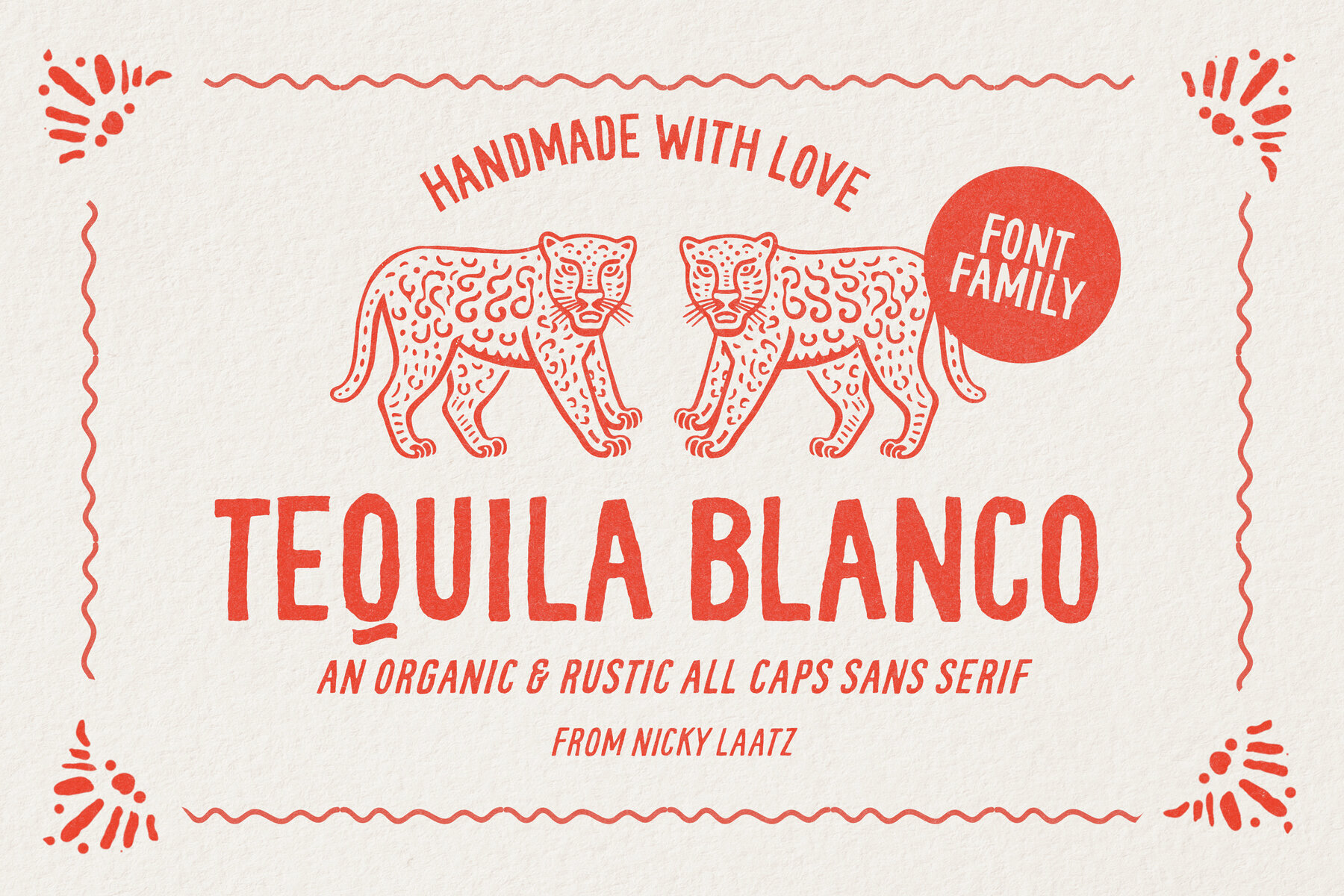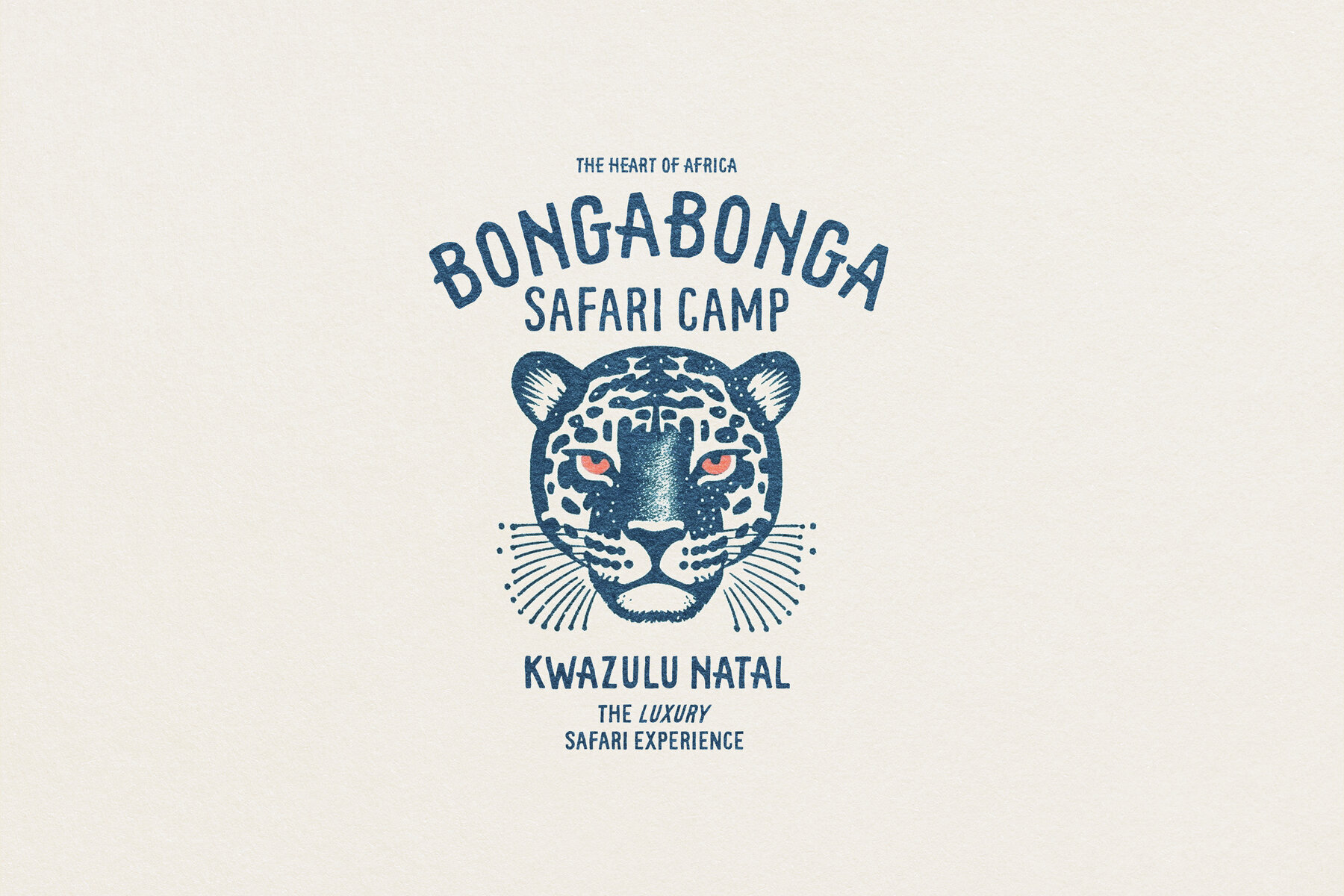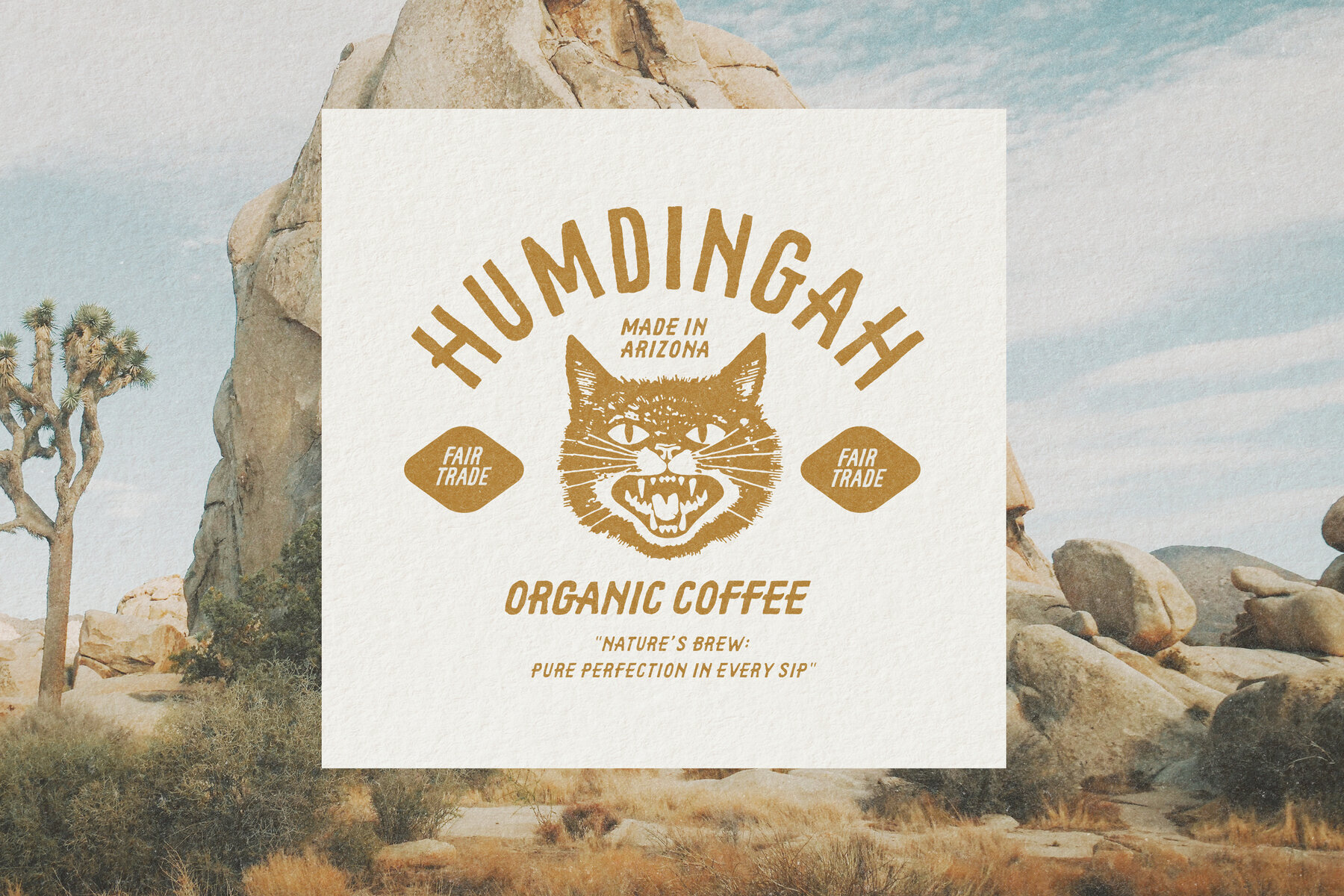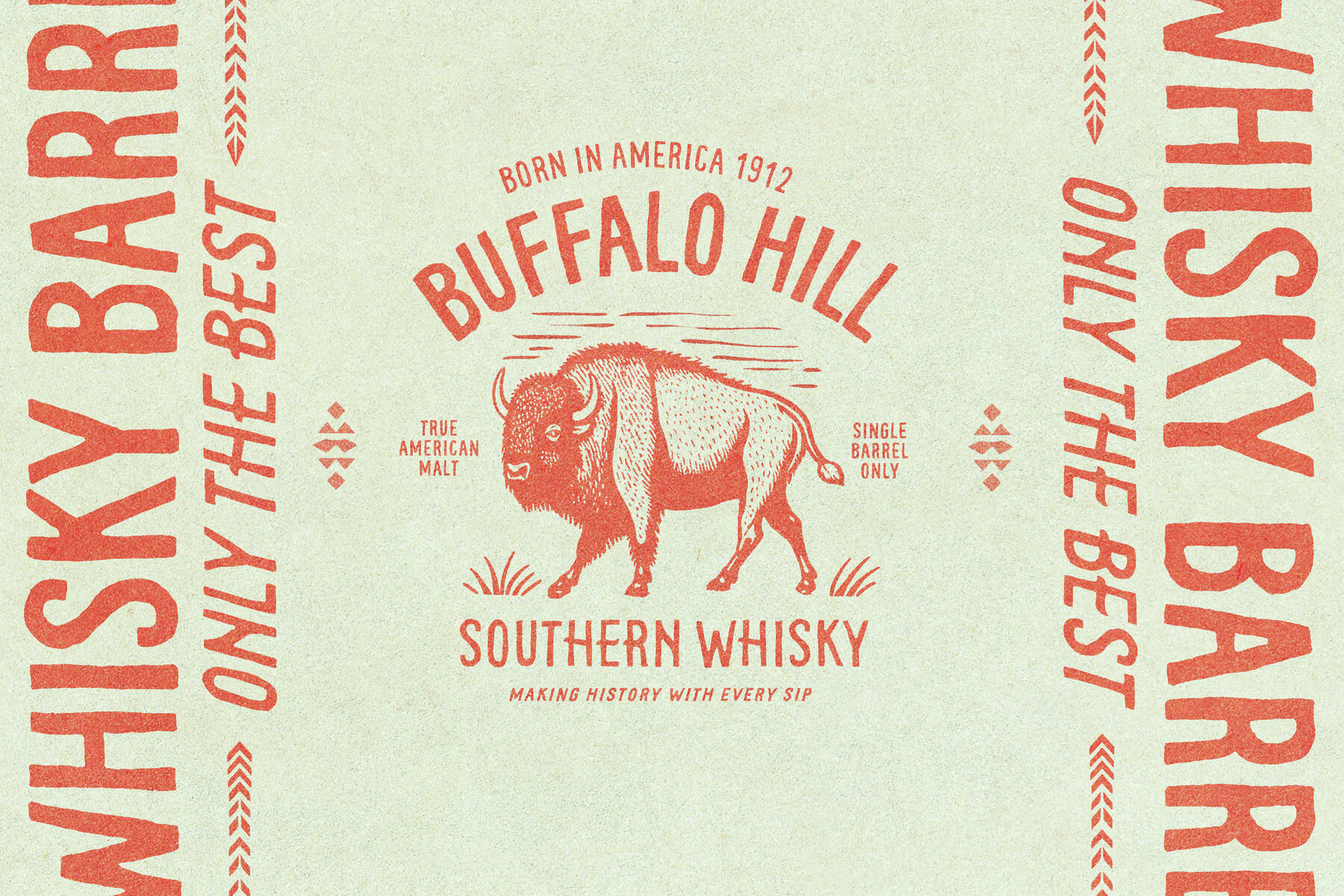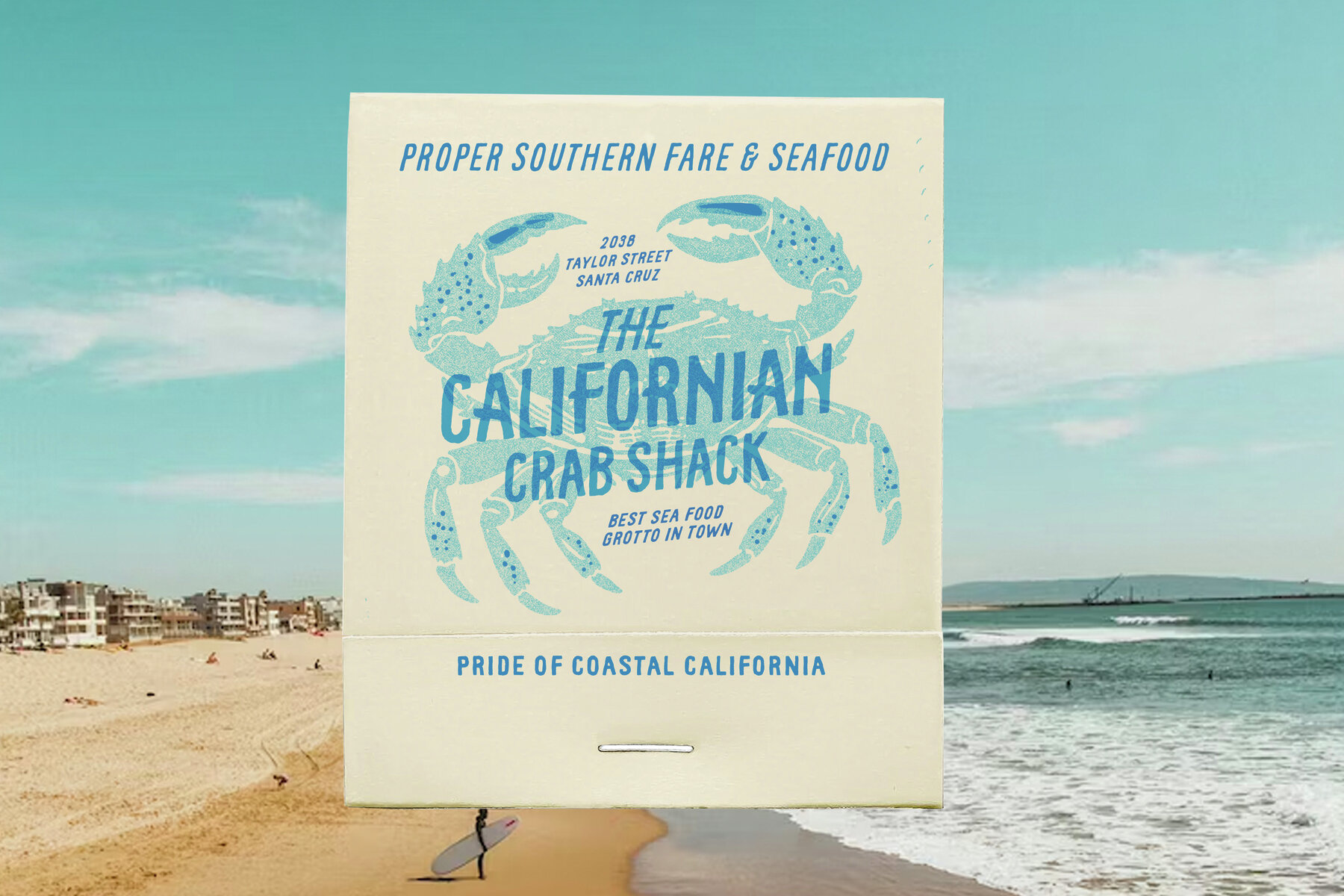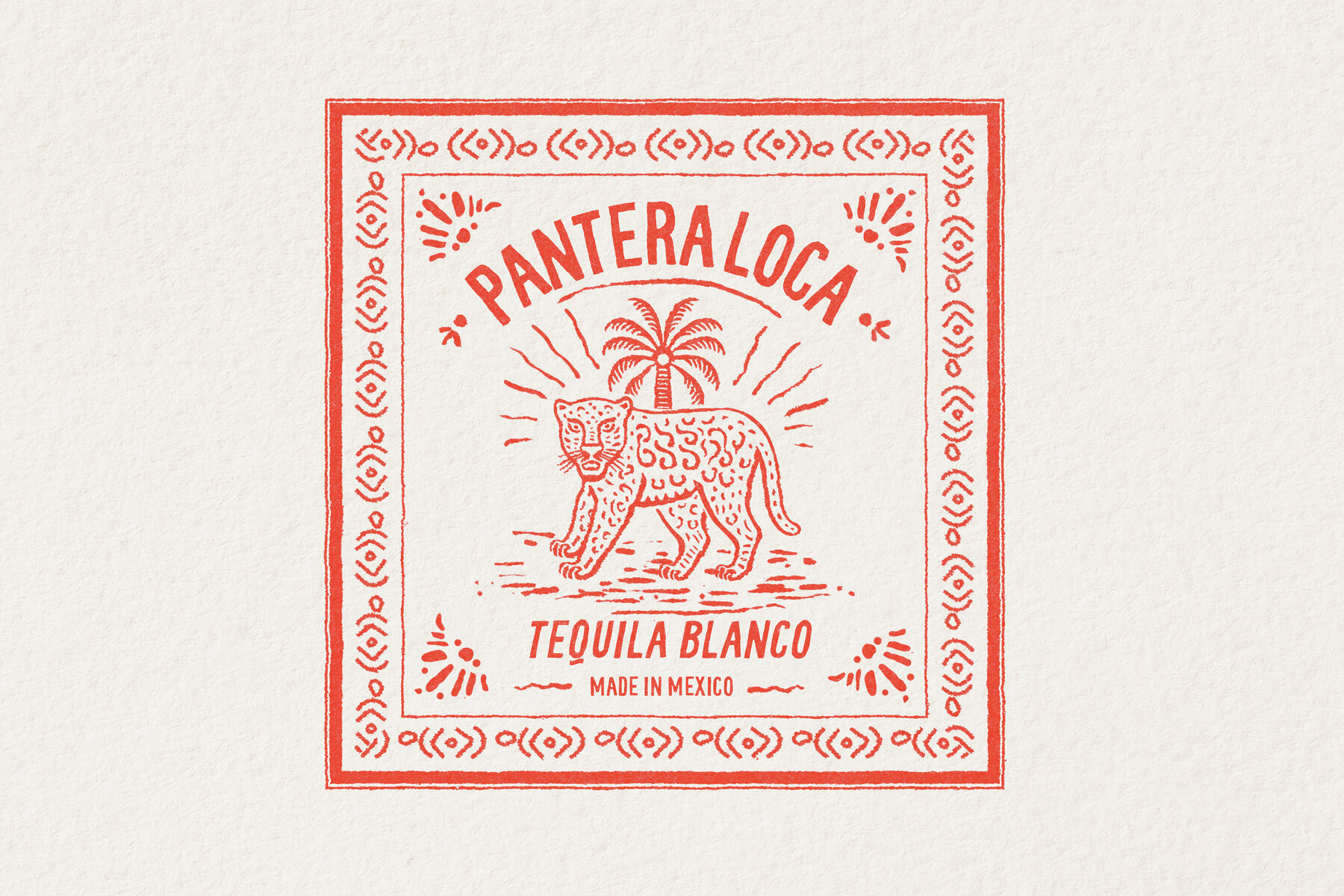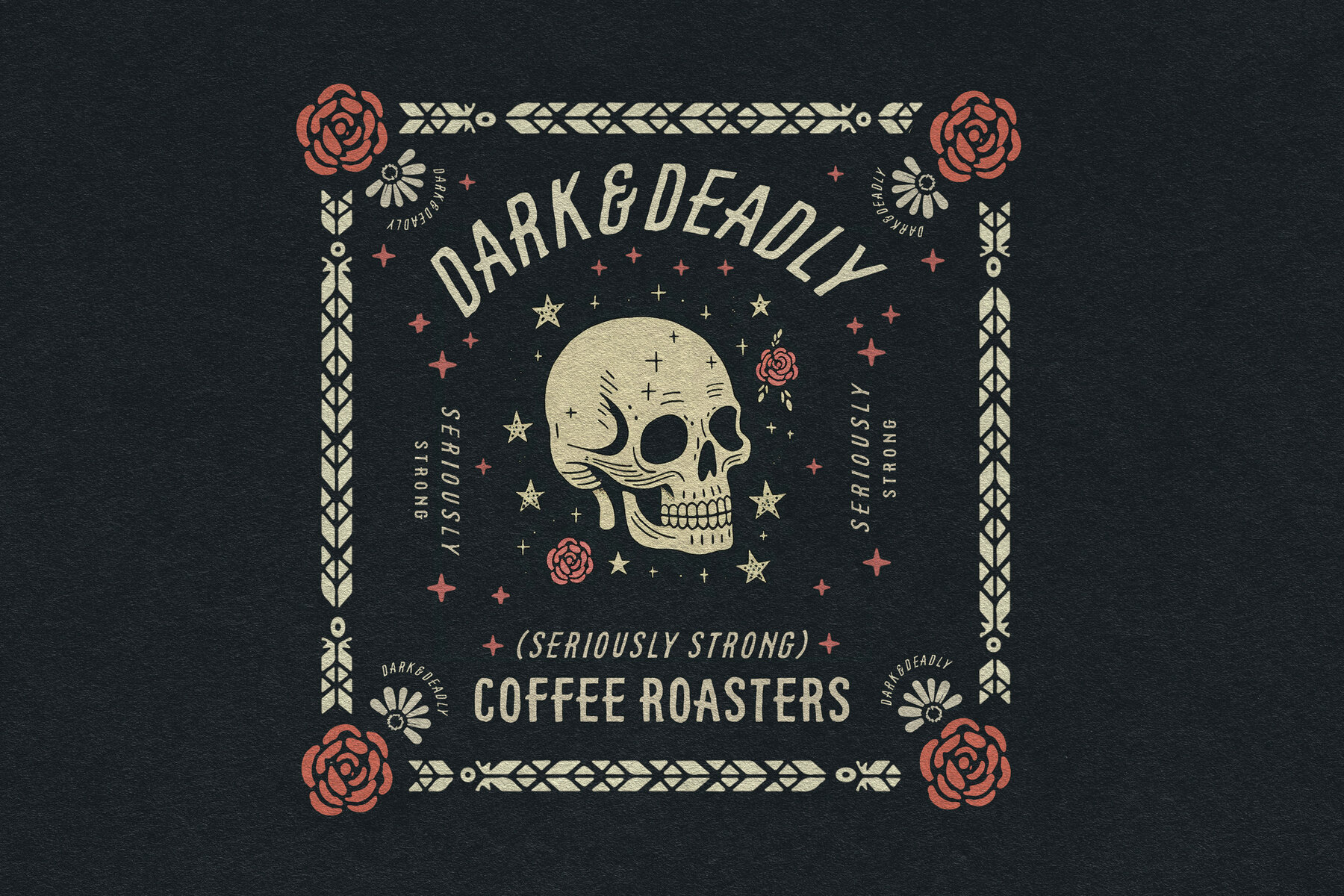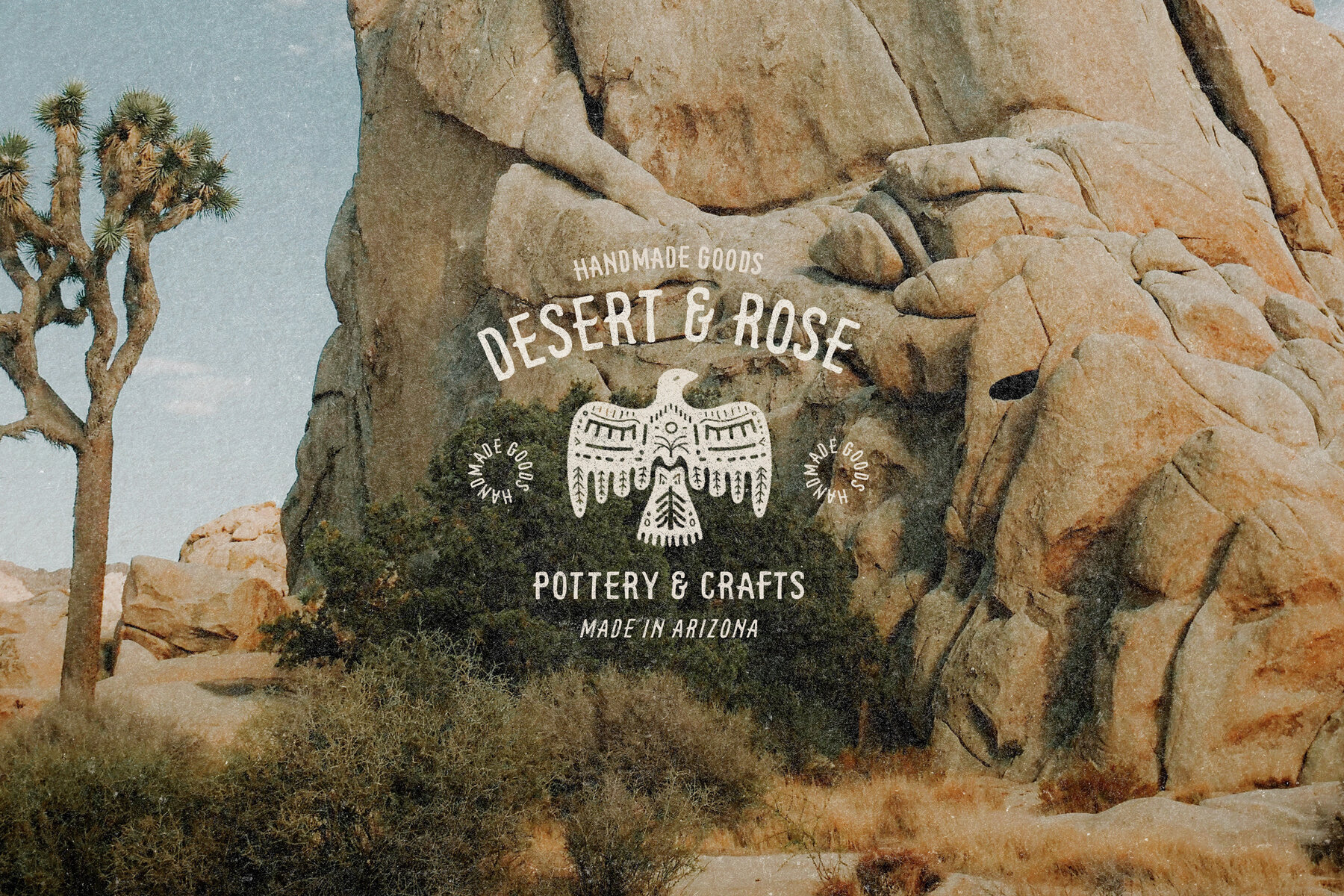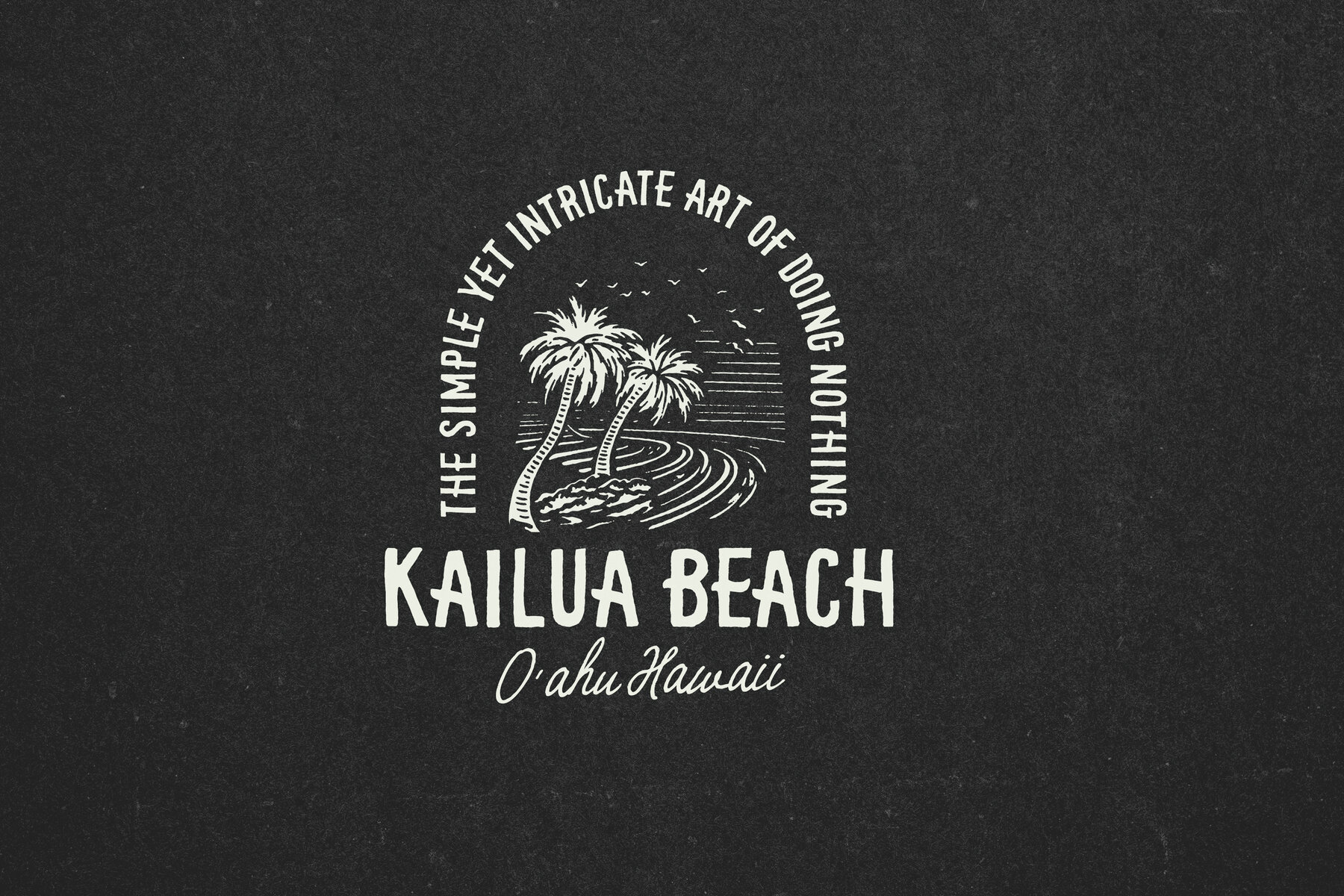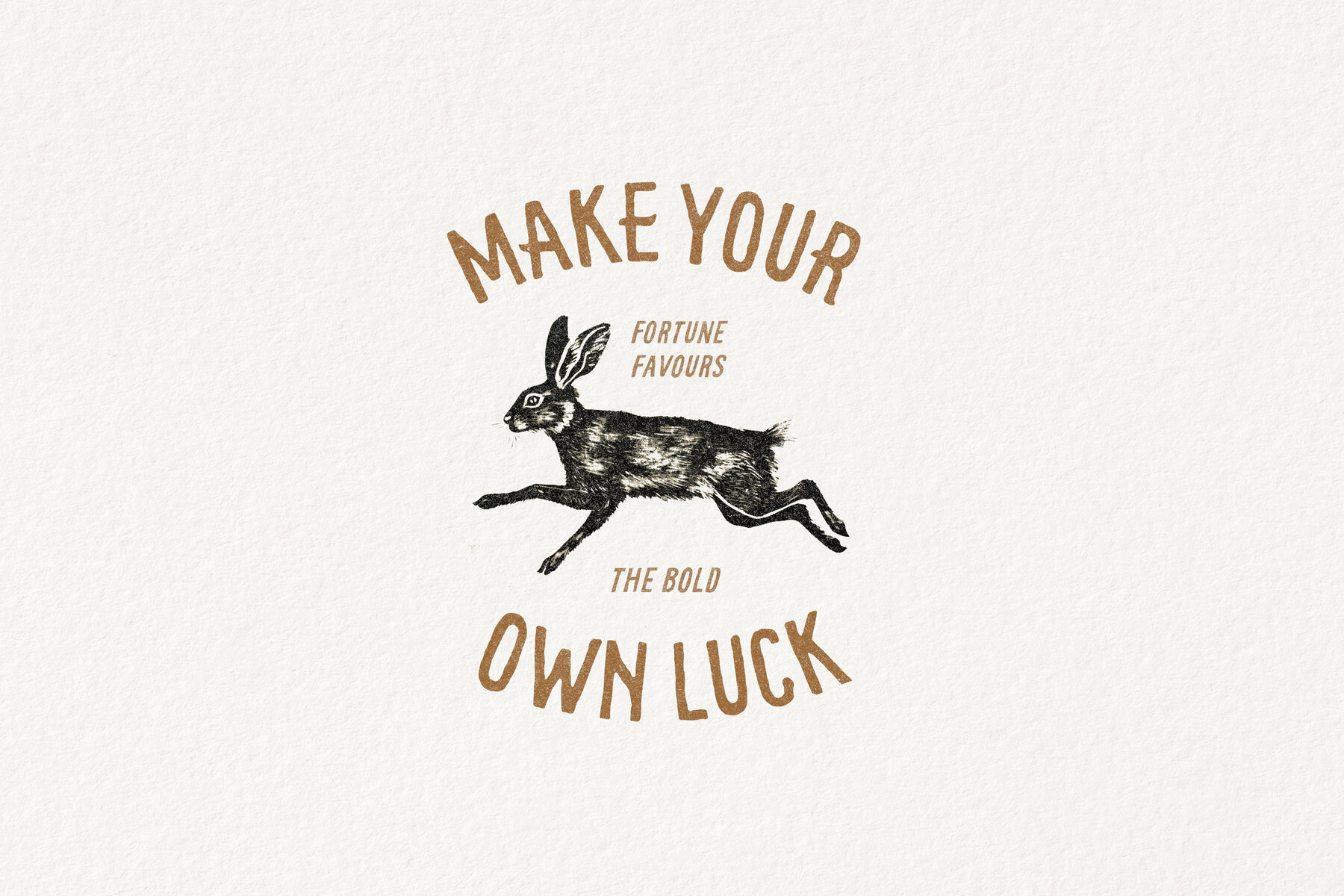
Tequila Blanco Font
Crafted with an uncivilized heart yet a refined touch, "Tequila Blanco" is the latest remarkable typeface to come from the extraordinary talent of Nicky Laatz. This all-caps font is more than a collection of characters; it's a palpable journey into the wild spirit of the enigmatic Arizona desert. Tequila Blanco is purposely carved with desirable imperfections, defined by its rough edges reminiscent of worn-out landscapes carved by time and the unyielding desert winds. Its rustic aesthetic delivers a rugged authentic tone, promising to transport your audience straight into the adventurous world it represents. This amalgamation of elegance and wilderness makes it a perfect fit for graphic designers seeking to instill a sense of authenticity in their projects or marketing firms hunting for a unique tone that narrates the story behind their brand. Key Features:Tequila Blanco: A Taste of the Wild for the Sophisticated Designer